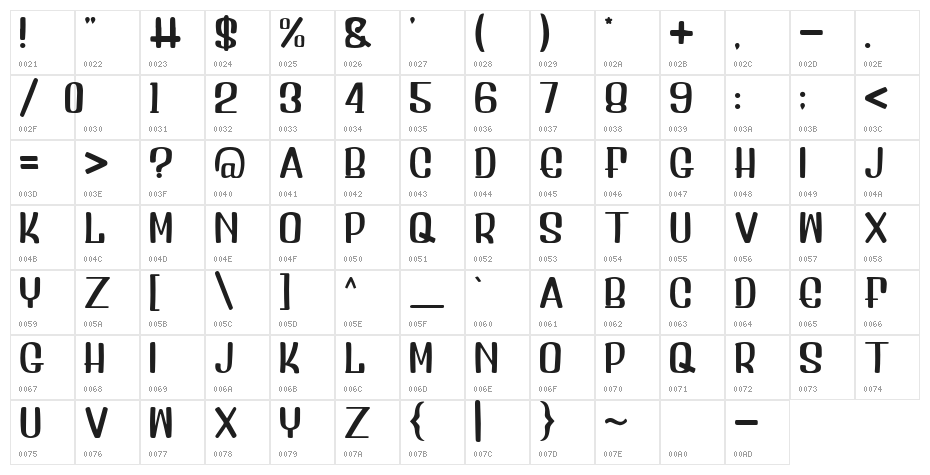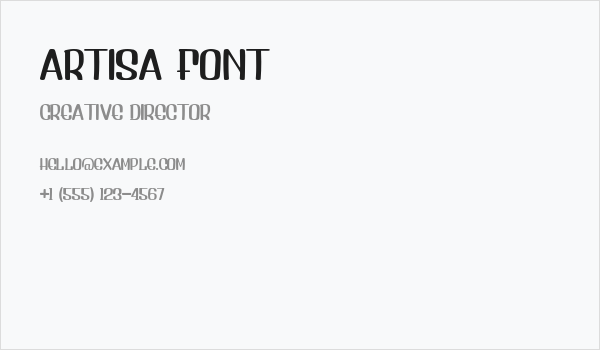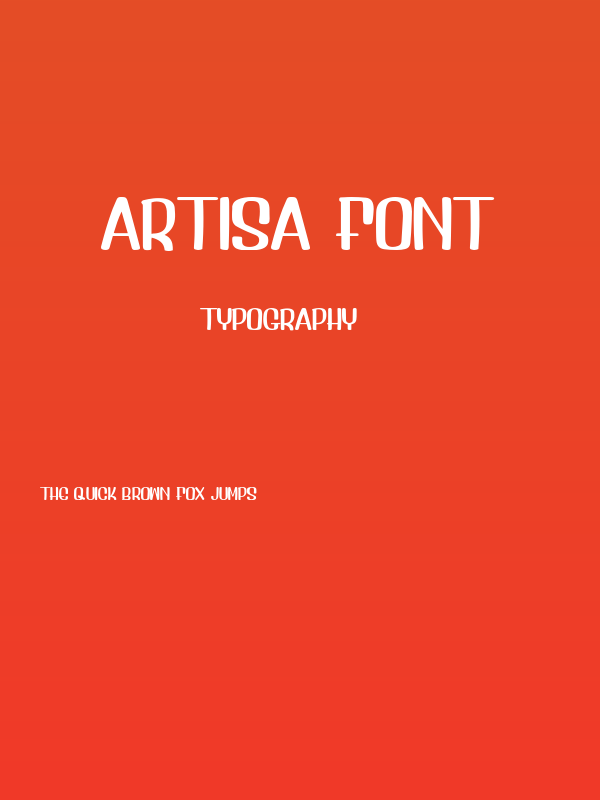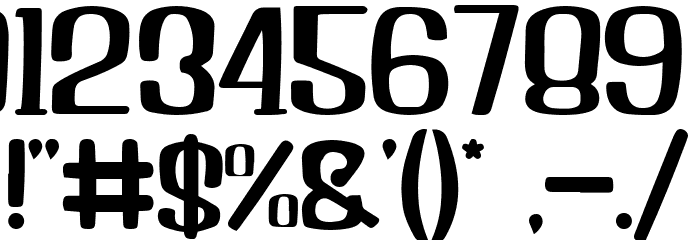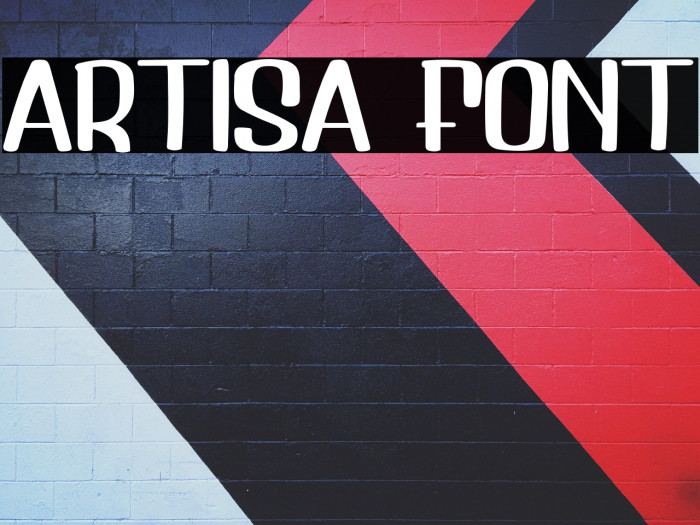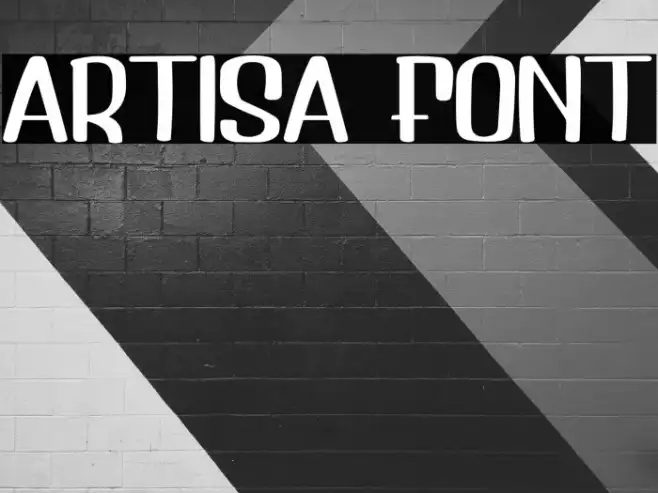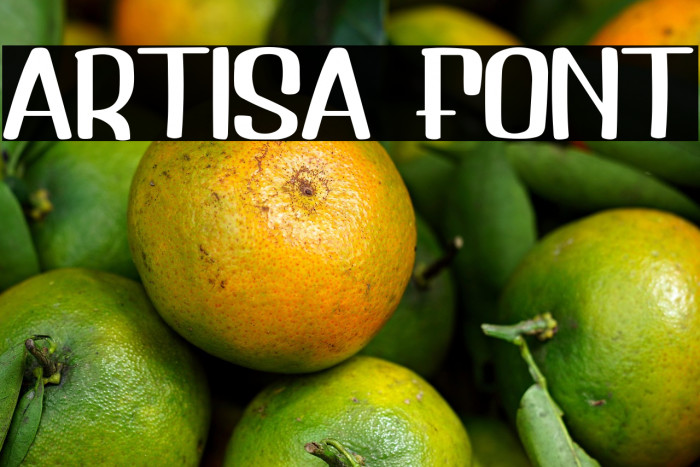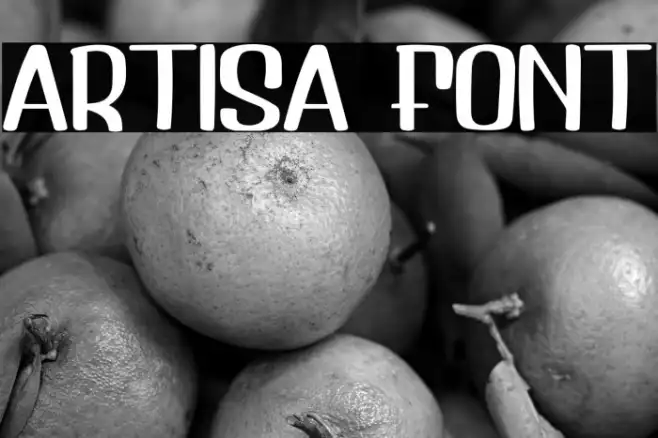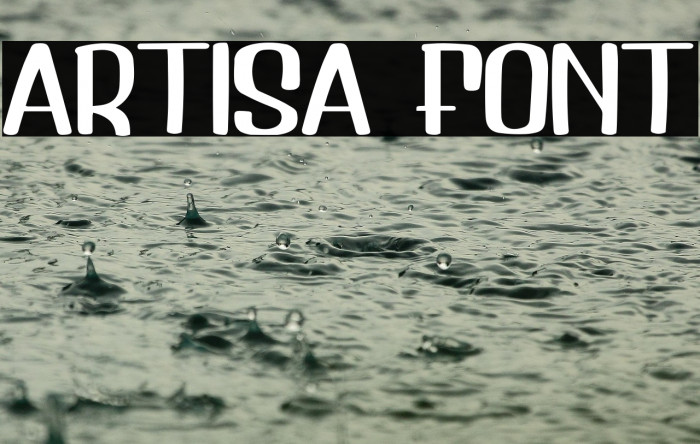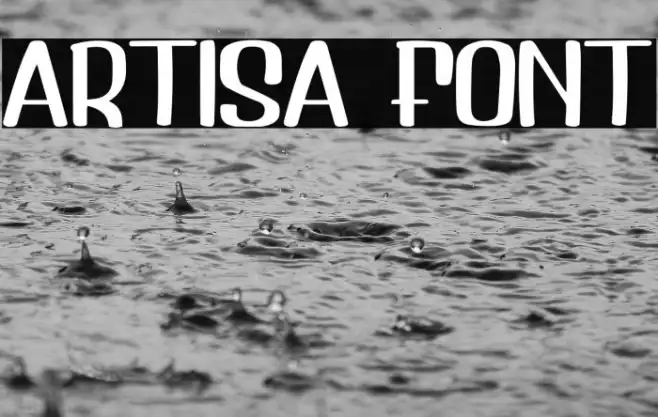
Artisa Font Font
Artisa Font Description
This font features a bold and playful design with a unique blend of geometric and organic shapes. The uppercase letters are characterized by their thick, rounded strokes and slightly condensed form, giving them a strong presence. The lowercase letters maintain a similar style, with a quirky touch that adds personality. The numerals are consistent with the overall style, featuring rounded edges and a bold appearance. Special characters are creatively designed, maintaining the playful and bold aesthetic. This font is ideal for projects that require a fun and engaging look.
| Overall Style | Playful, Modern |
| Proposed Projects | Perfect for children's books, playful branding, posters, and creative packaging. |